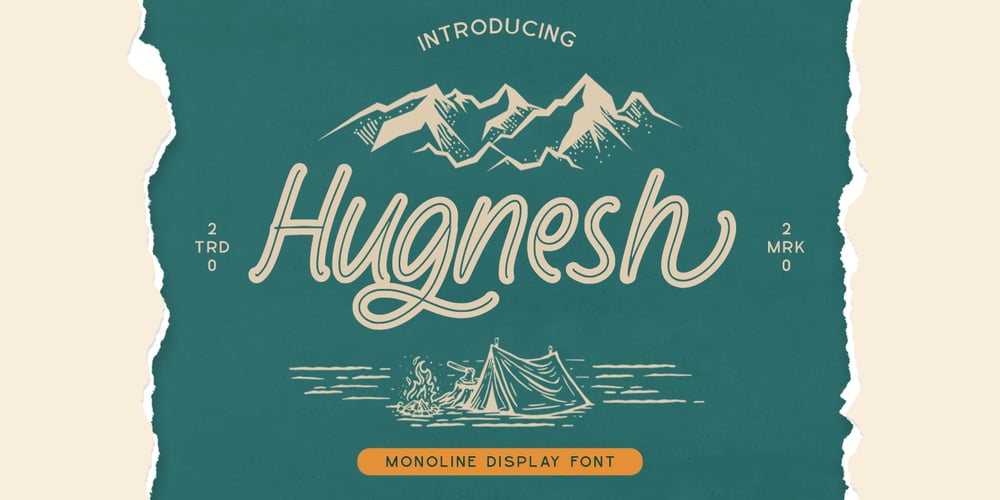
Hugnesh Font Family was designed by Donis Miftahudin and published by Ditatype. Hugnesh contains 1 styles and family package options. Introducing Hugnesh Font. Hugnesh font is a monoline display font. Create from our talented font designer. The design of typeface will make your design more beautiful and inspiring. This font will suitable for any project, like branding, print template, logo and etc.Includes :Hugnesh (OTF)Features : Multilingual Support Beautiful Ligature PUA encoded Stylistics Set Numerals and Punctuation (OpenType Standard) Full Support Thanks for visiting and purchasing my font!